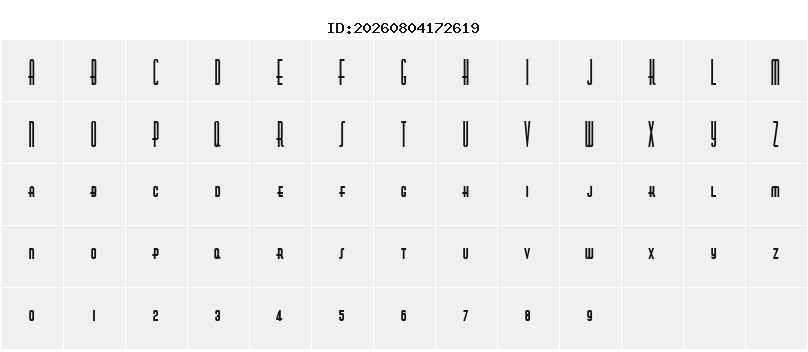
• Font Name: Nickodemus
• Font Style: Extremus
• Font ID: Macromedia Fontographer 4.1 Nickodemus Extremus
• Full Font Name: Nickodemus Extremus
• Version: Macromedia Fontographer 4.1 30.11.2002
• PostScript Name: NickodemusExtremus
• Character Count: 168
About Nickodemus.ttf
Nickodemus.ttf is a modern, elegant sans-serif font designed for ultimate readability and visual harmony. Perfect for branding, headlines, web design, and print materials.